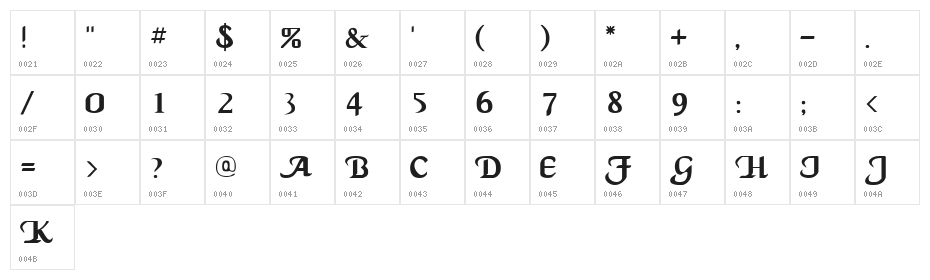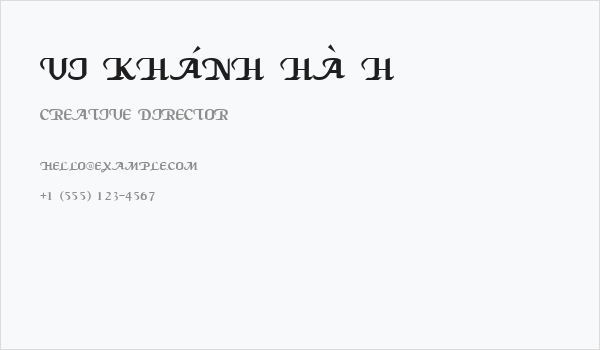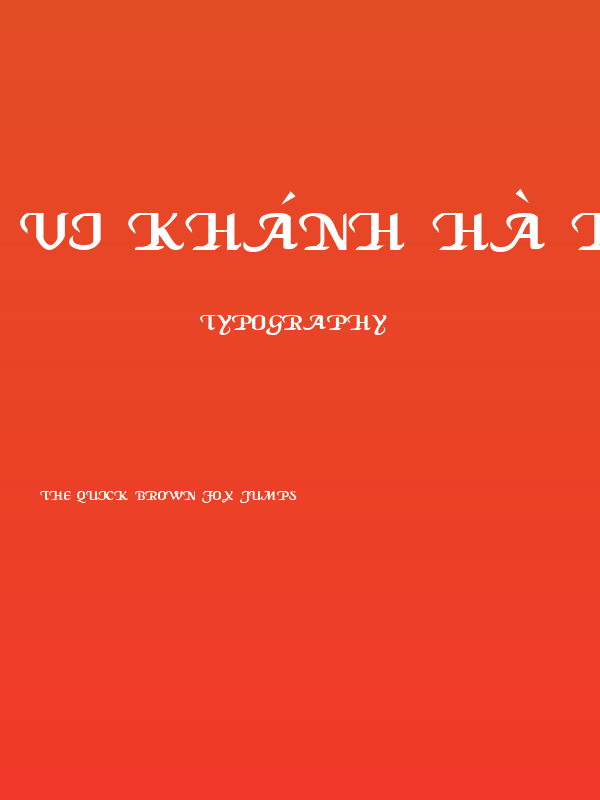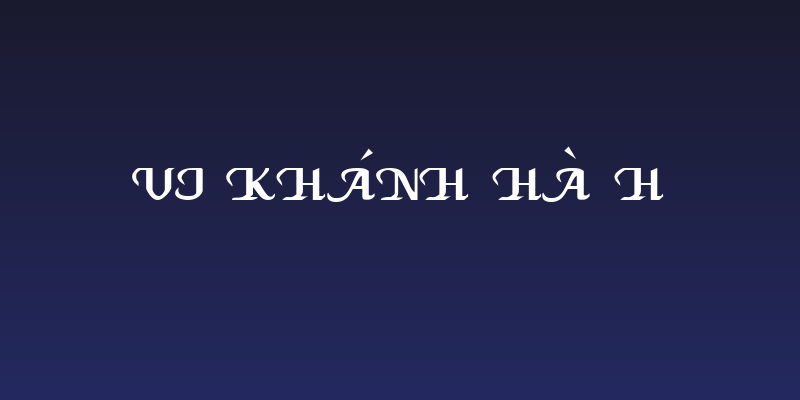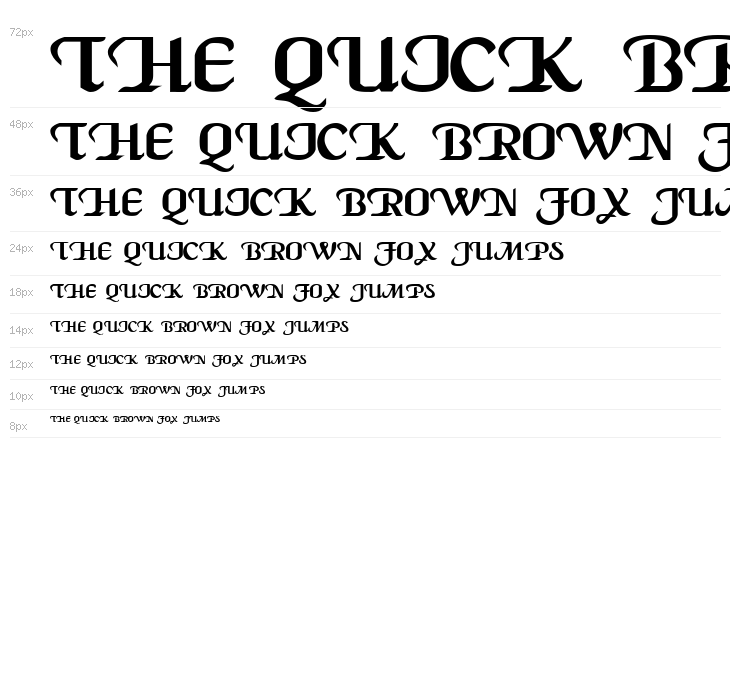
VI Khánh Hà H Font
VI Khánh Hà H Description
This font features a bold and decorative style with a distinct blackletter influence. The uppercase and lowercase letters exhibit a strong presence with thick strokes and sharp, angular serifs. The numbers are equally bold, maintaining the same decorative flair. Special characters are designed to match the overall aesthetic, providing a cohesive look across all glyphs. The font's intricate details and bold appearance make it suitable for projects that require a dramatic and eye-catching typeface.
| Proposed Projects | Ideal for use in headlines, logos, posters, and any design requiring a dramatic and bold typeface. |